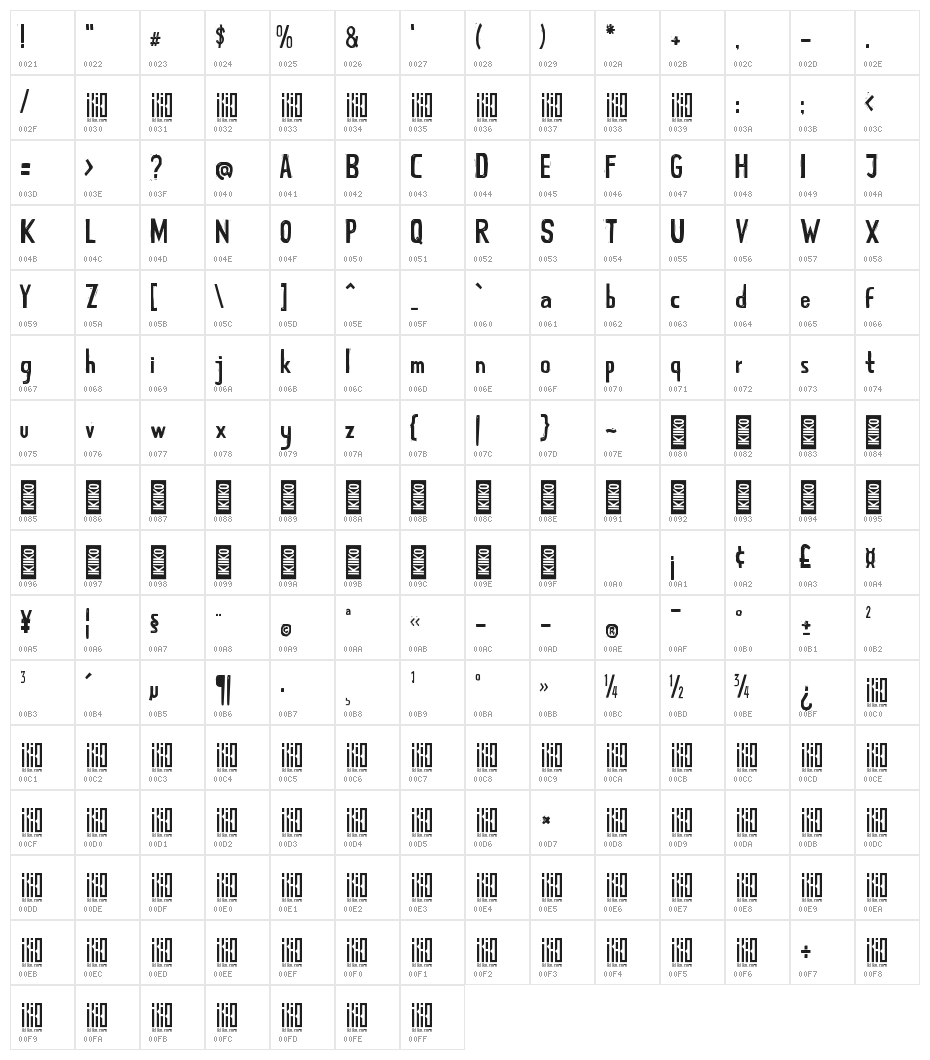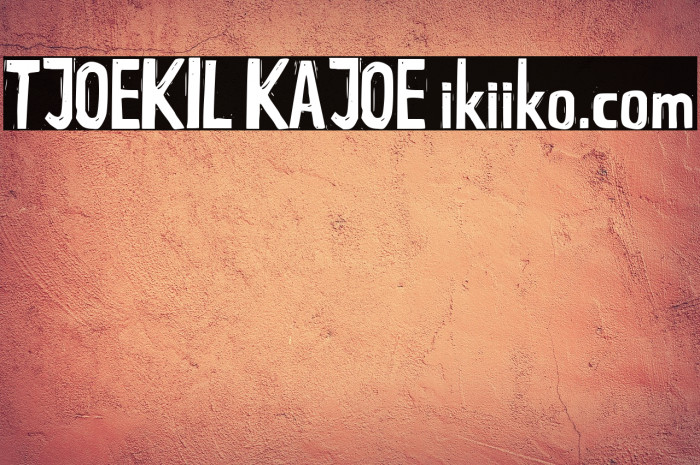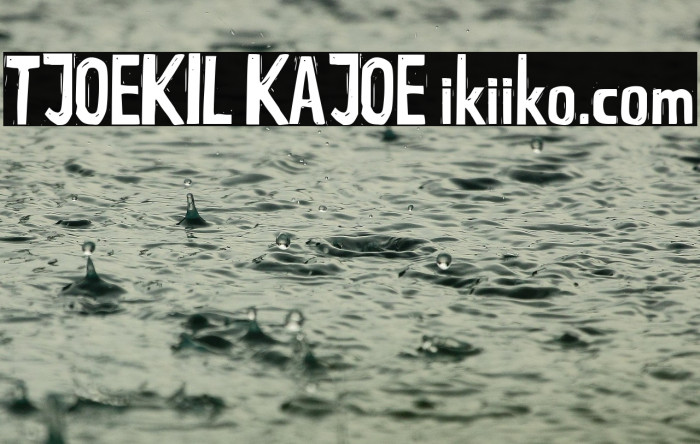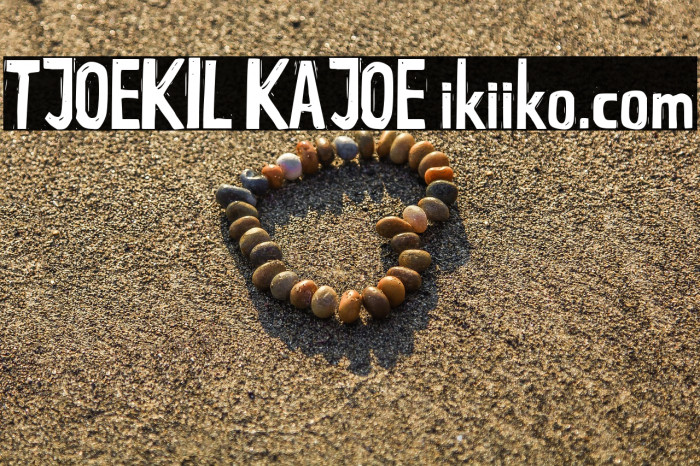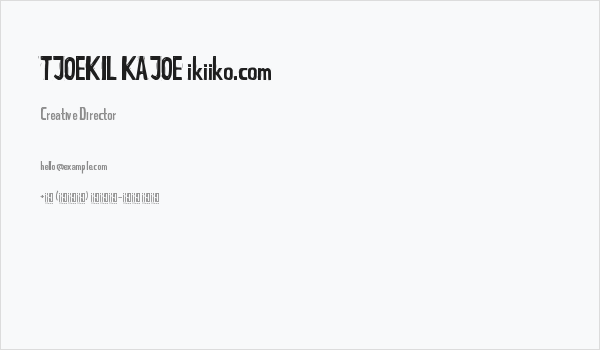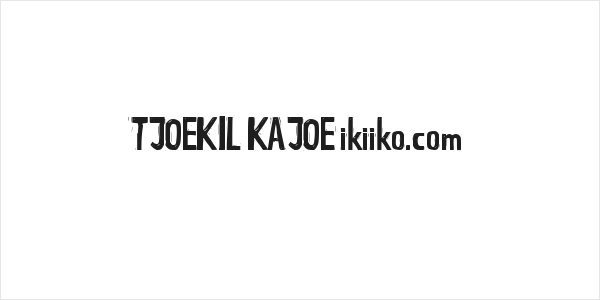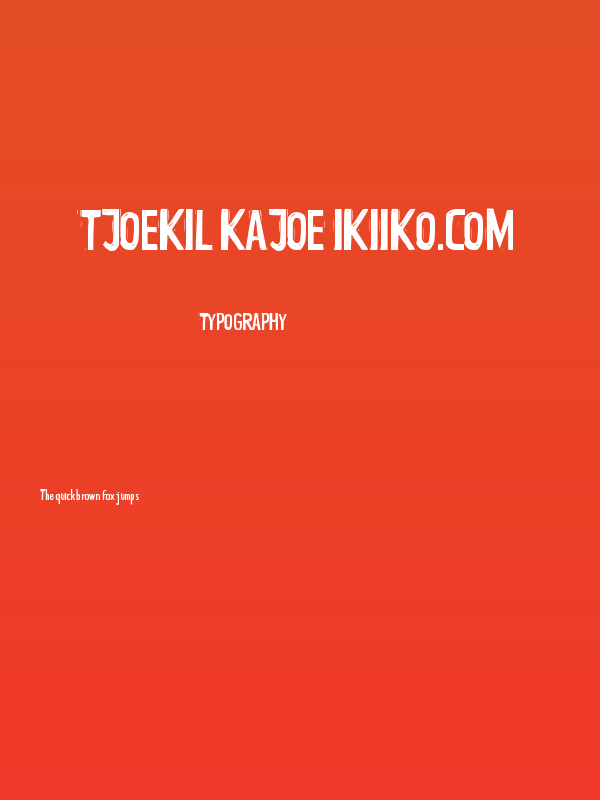
TJOEKIL KAJOE ikiiko.com Font
TJOEKIL KAJOE ikiiko.com Description
This font features a bold and dynamic style with a slightly distressed appearance, giving it a unique and edgy look. The uppercase letters are tall and narrow, with sharp angles and a strong presence. The lowercase letters maintain a consistent style, complementing the uppercase with a slightly more relaxed form. The numbers and special characters follow the same design principles, ensuring a cohesive appearance across all text. The font's irregular edges and bold strokes make it stand out, ideal for projects that require a distinctive and impactful visual element.
| Overall Style | Modern, Edgy |
| Proposed Projects | Ideal for posters, album covers, branding, and any design needing a bold, edgy look. |